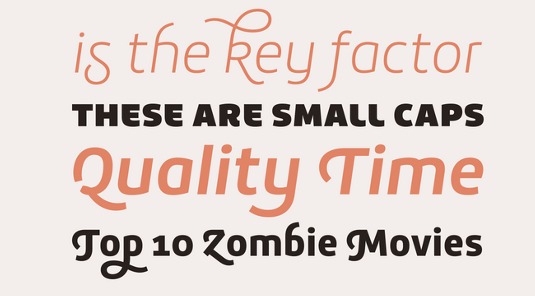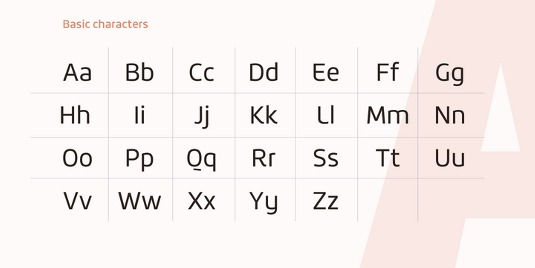
Font of the day: Roihu
Roihu by Mika Melvas
A sans serif family of 16 fonts, Roihu consists of eight upright and eight italic weights, with over 1,100 glyphs per weight. It also comes with a range of small caps, ligatures, old style and lining figures to keep things interesting.